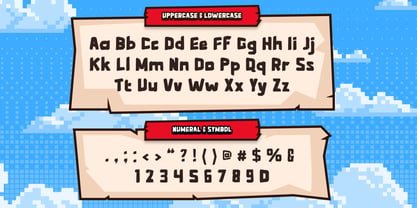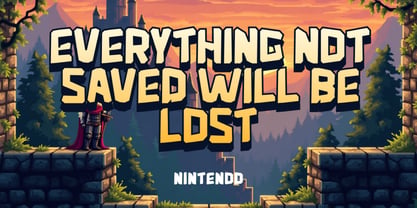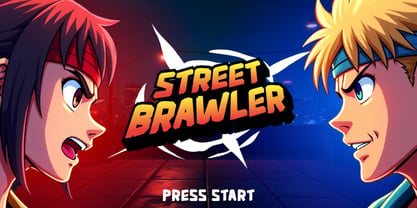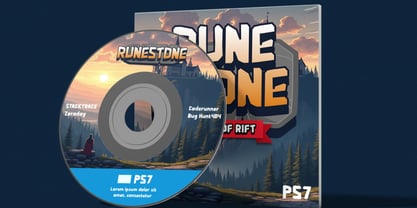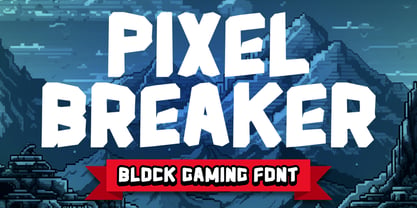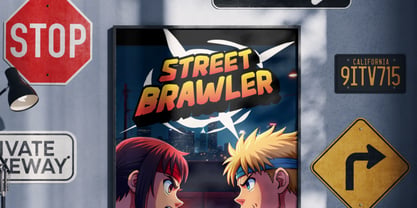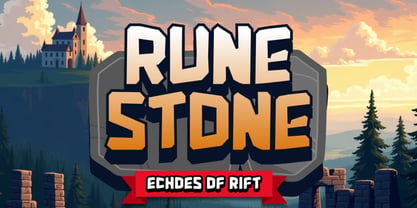
Pixel Breaker
Pixel Breaker is a dynamic block-style gaming font inspired by retro arcade aesthetics and pixelated visuals. Designed with sharp edges and a bold, playful tone, this typeface is perfect for video game titles, in-game UI, digital posters, YouTube thumbnails, and gaming merchandise. Pixel Breaker is the perfect fit for game developers, streamers, YouTubers, and content creators looking to capture a vintage arcade vibe or energize their branding with bold block letters. It's ideal for posters, app interfaces, game covers, banners, thumbnails, merchandise, and event promotions in gaming and entertainment sectors.